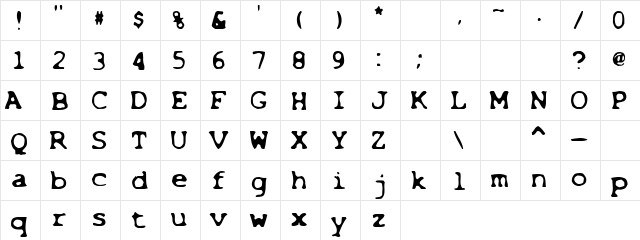
Art Yesterday Regular
Design Context for Art Yesterday Typeface
Art Yesterday takes a measured approach to typography — its balanced proportions and neutral character make it a reliable workhorse for both digital and print work.